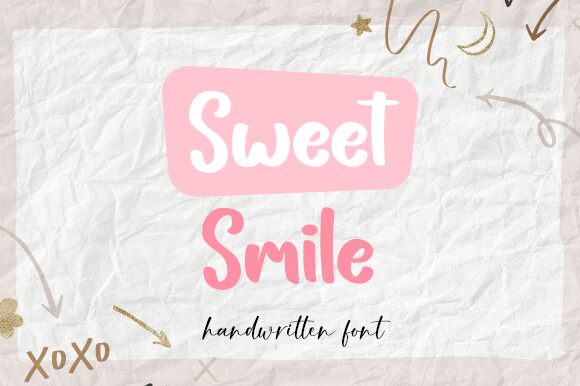
Sweet Smile
Sweet Smile, the charming handwritten font by Aldi Raya Pradipta, is a beautiful addition to any creative project. With its smooth and flowing lines, this semi-bold font adds a touch of whimsy and playfulness to any design. Perfect for branding, invitations, posters, or social media graphics, Sweet Smile is versatile enough to suit a wide range of projects. Its medium width makes it easily legible while retaining its elegant aesthetic. Bring joy and personality to your designs with Sweet Smile – the perfect font for those seeking a distinctive and adventurous typeface.